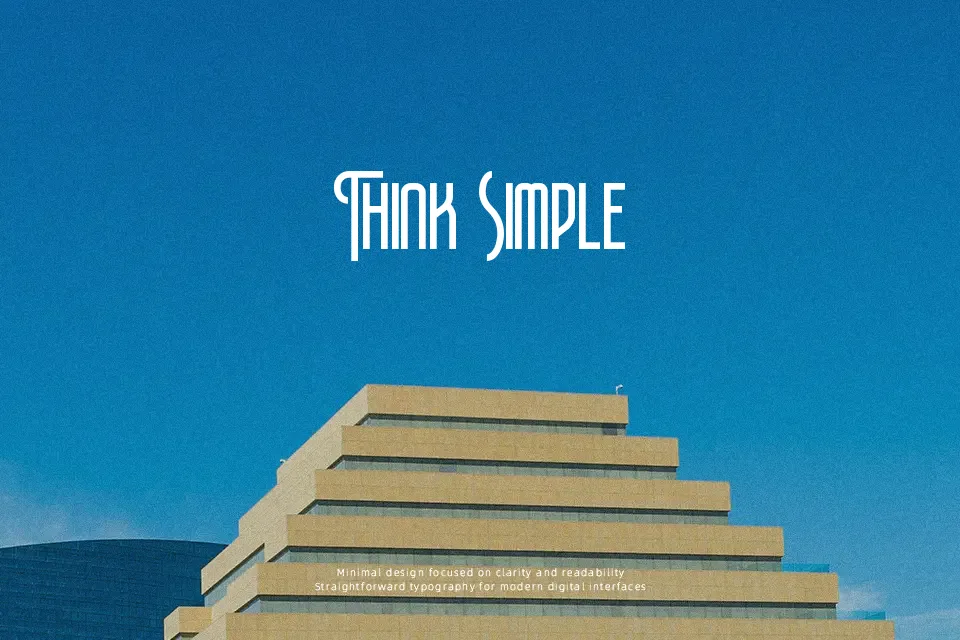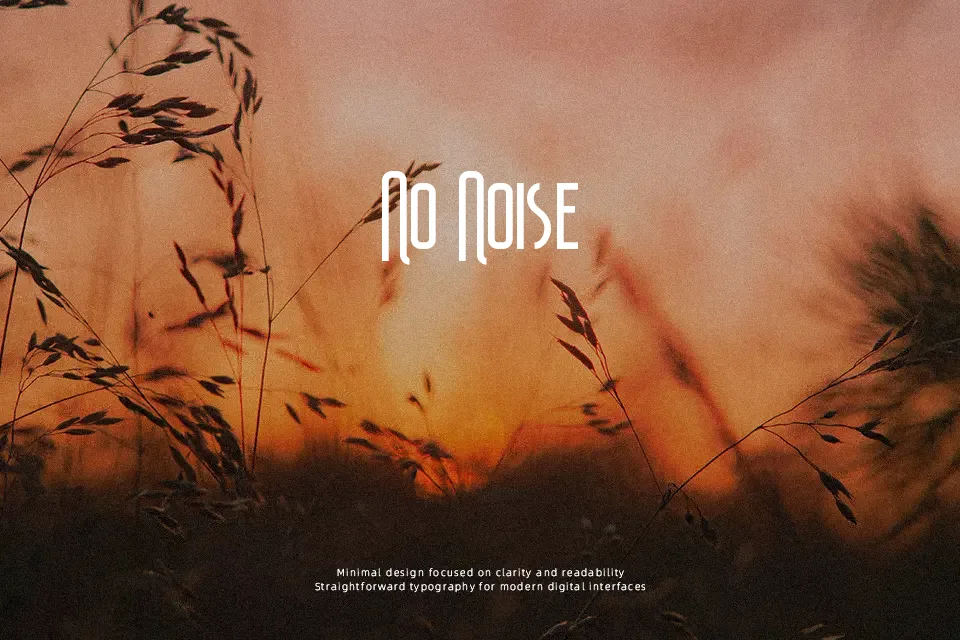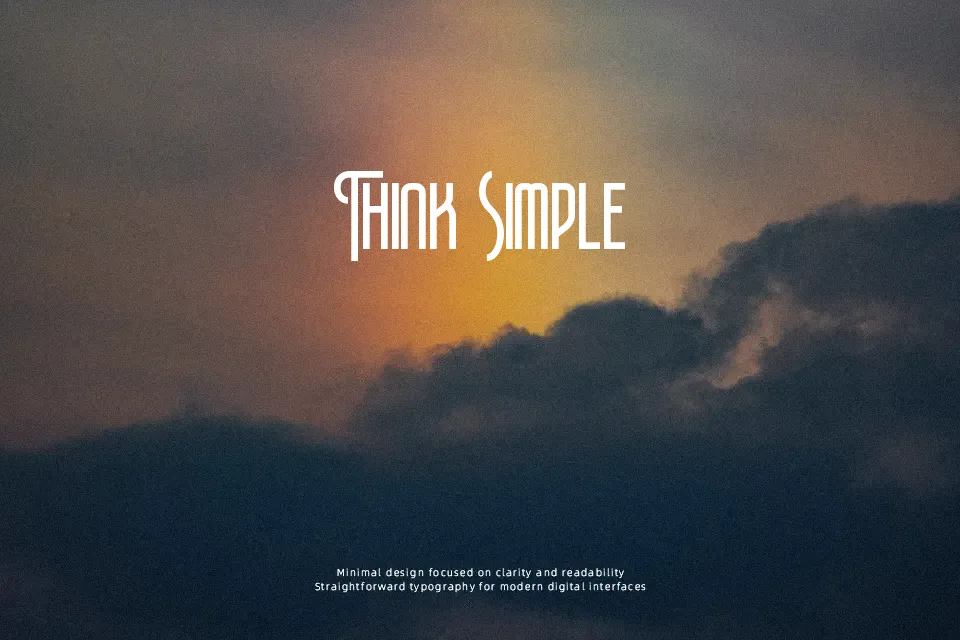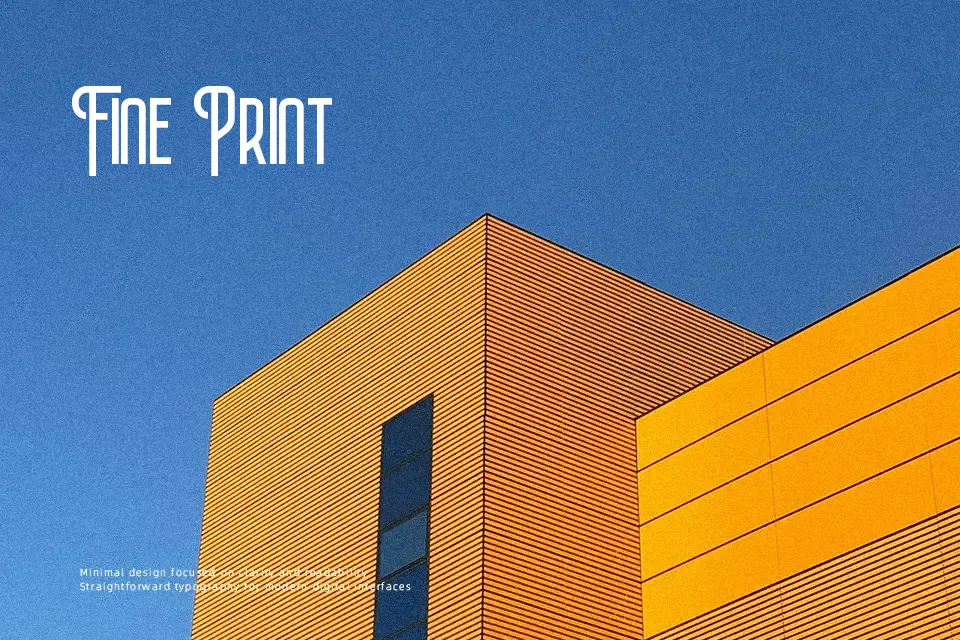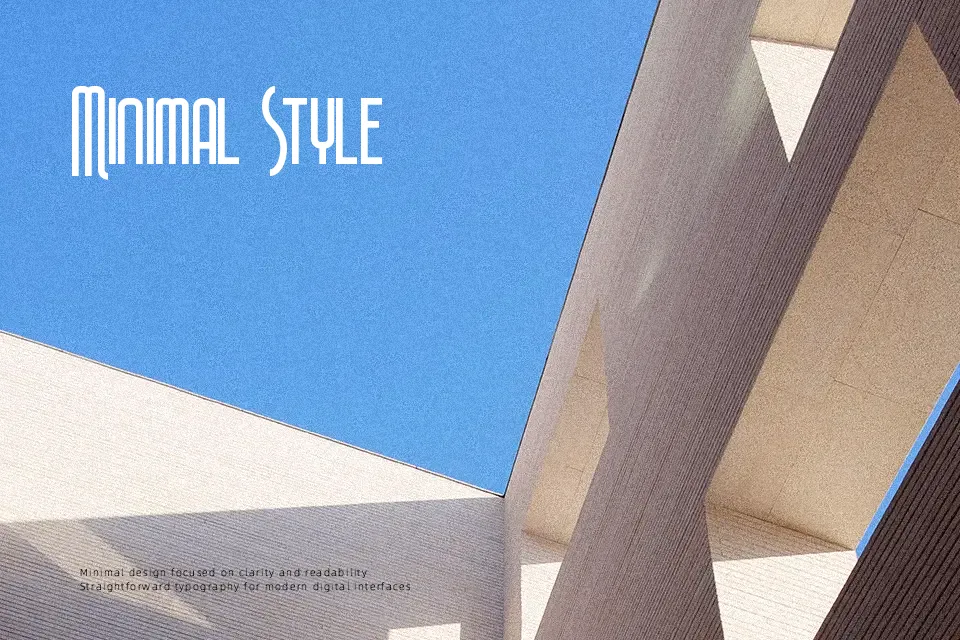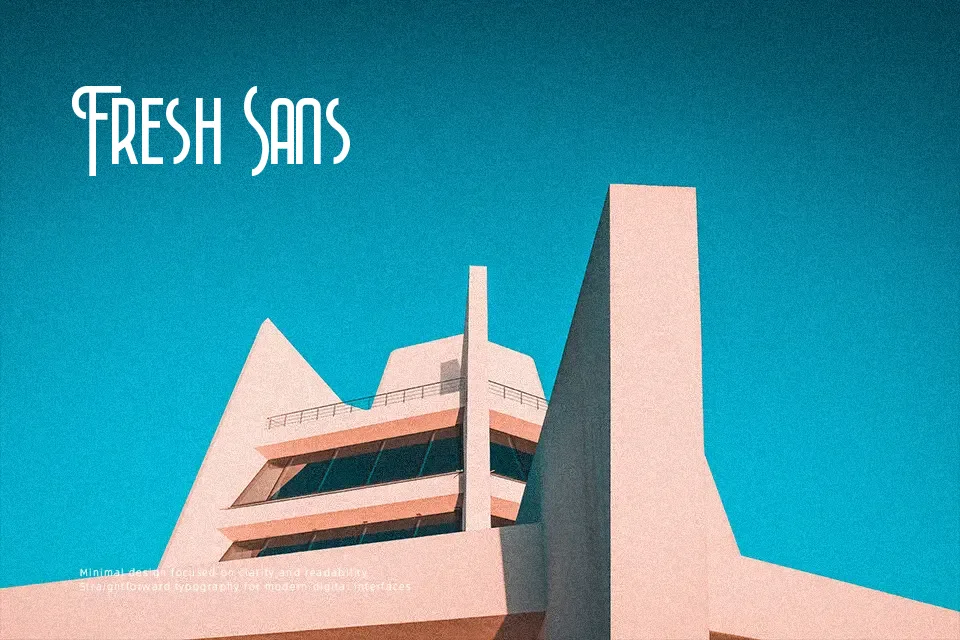
Plasma Font
Designed by Peter Olexa
Plasma Font performs best when displayed at larger sizes, where its geometric decorative construction and angular details remain clear. The letterforms use firm, even-looking strokes, compact proportions, and a deliberate visual rhythm that gives short words a strong retro character. Its stylized shapes work well for title-led layouts such as packaging, event graphics, and logo concepts. Spacing supports concise display settings more effectively than extended copy. The typeface is less comfortable in small sizes because its distinctive construction can make individual details harder to separate. For practical use, it is strongest as a focal typeface rather than a reading font.
Best For: retro product packaging,music poster titles,logo concepts,event signage
Perfect for headline, logo, and music, with a bold and decorative style.